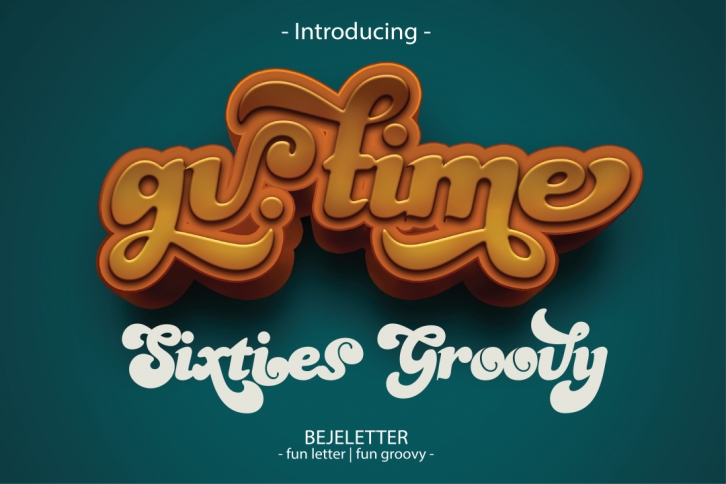
Inspired from 60's and 70's script lettering, bringing a smile and a dose of nostalgia to the daily lives. Where you get to relive the far out culture of the 60’s and 70’s! The era of groovy was all about music, festivals, where icons were created, epic stories were told, and culture was changed forever. The Gv. time came with open type features such stylistic alternates and others, its help you to make great lettering, also support multilanguage.